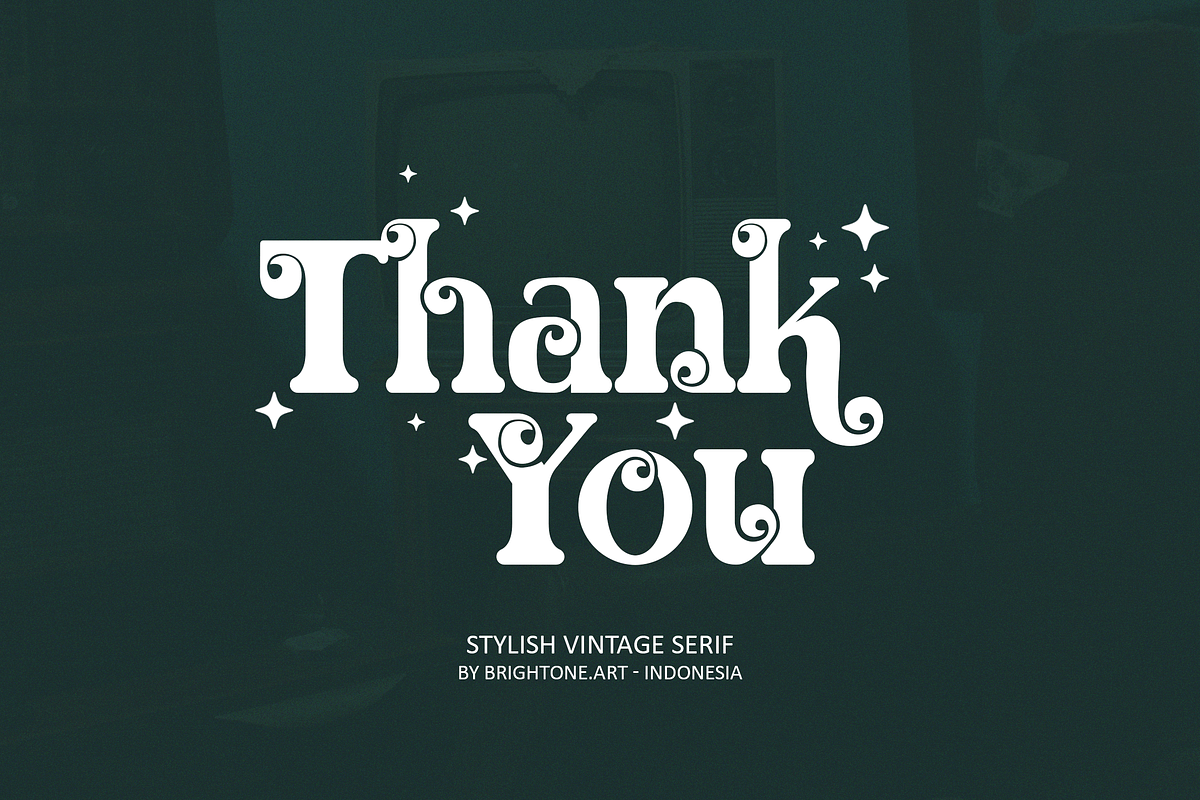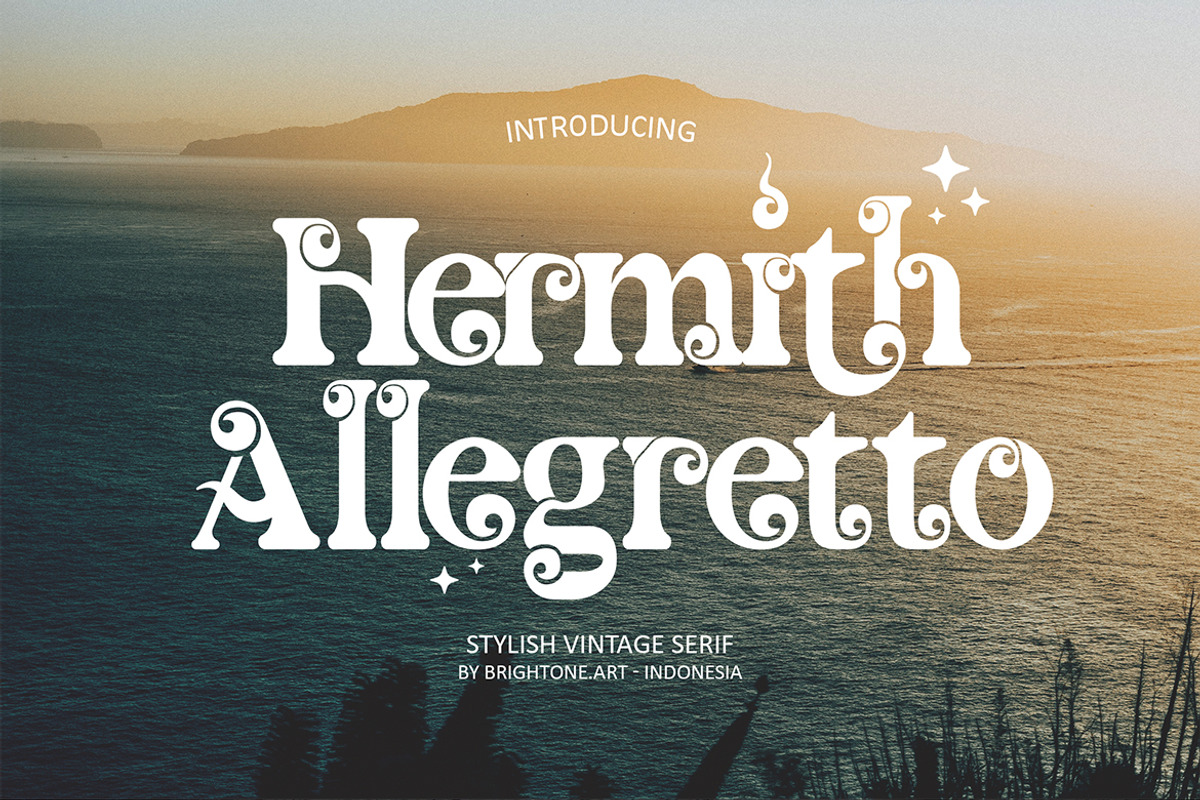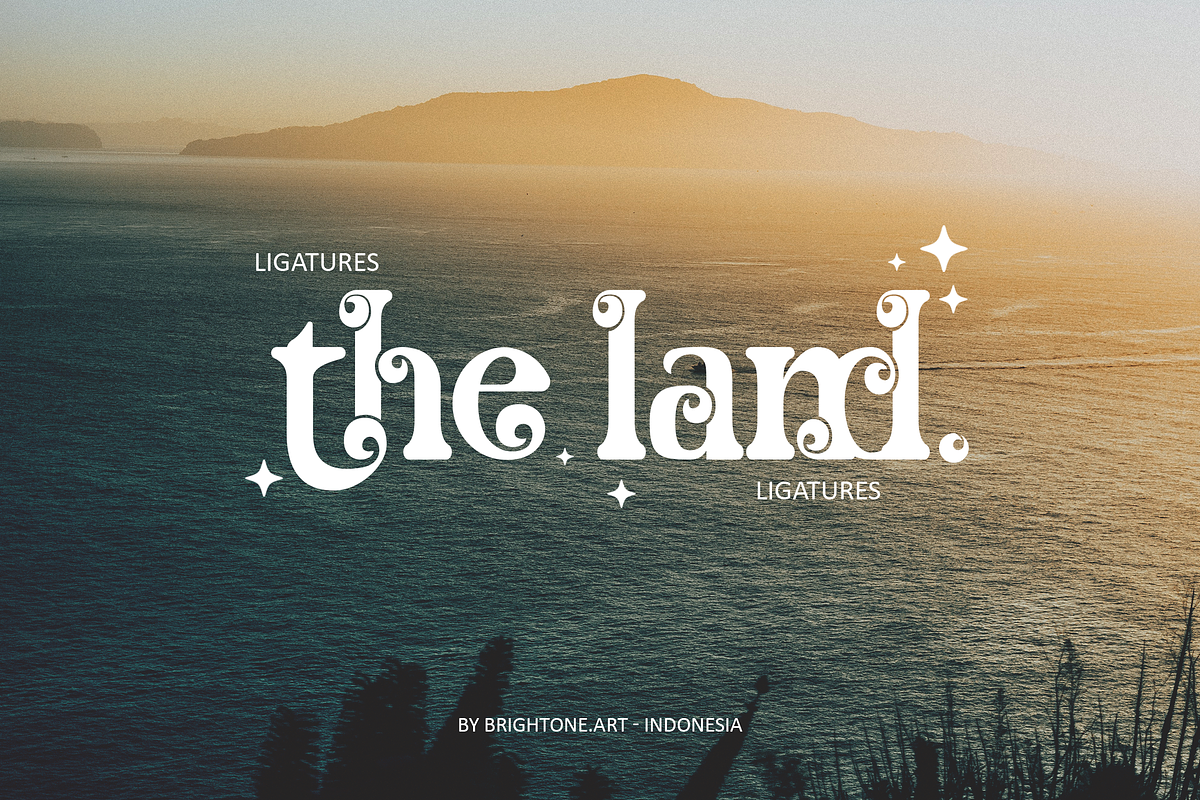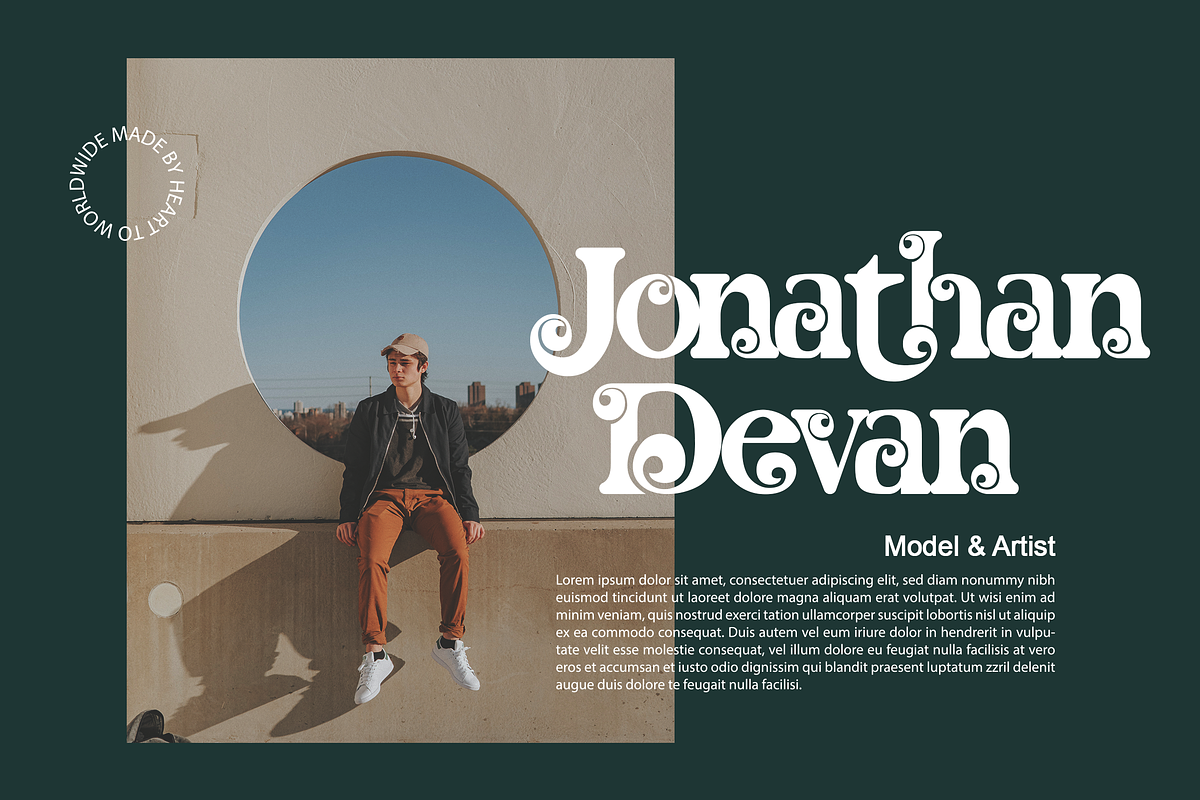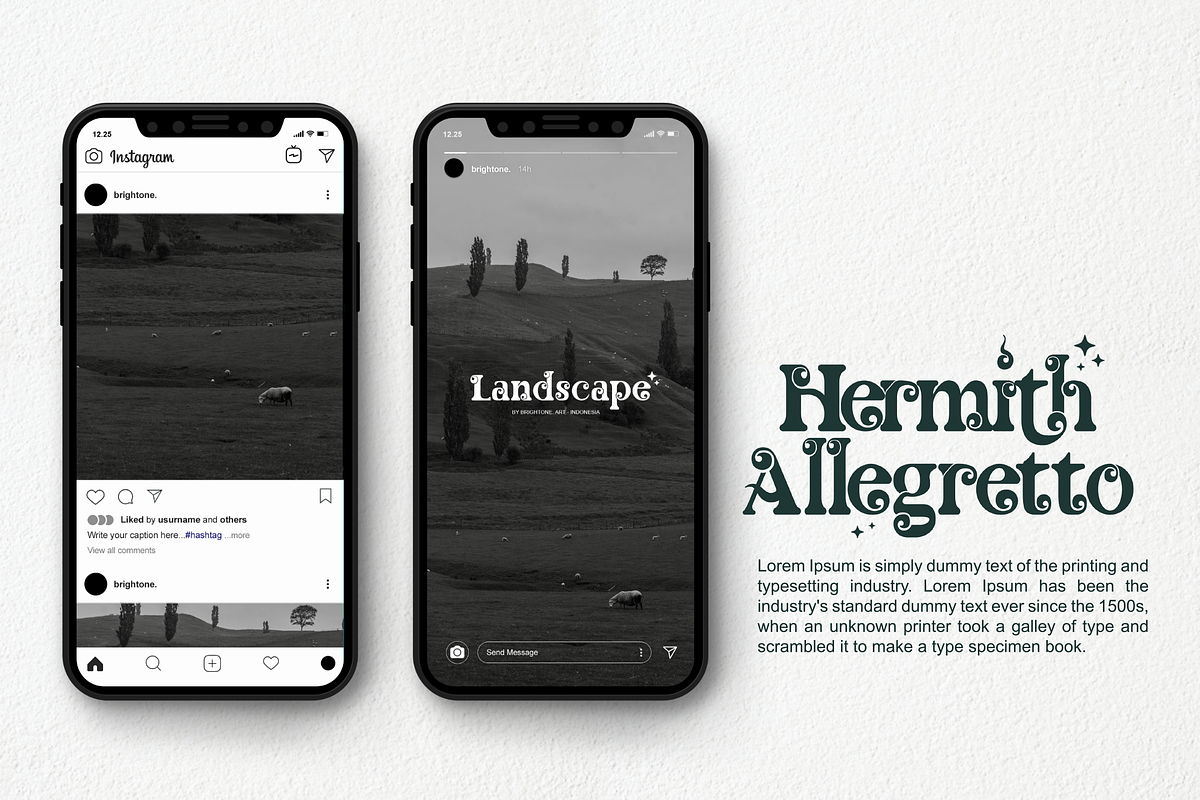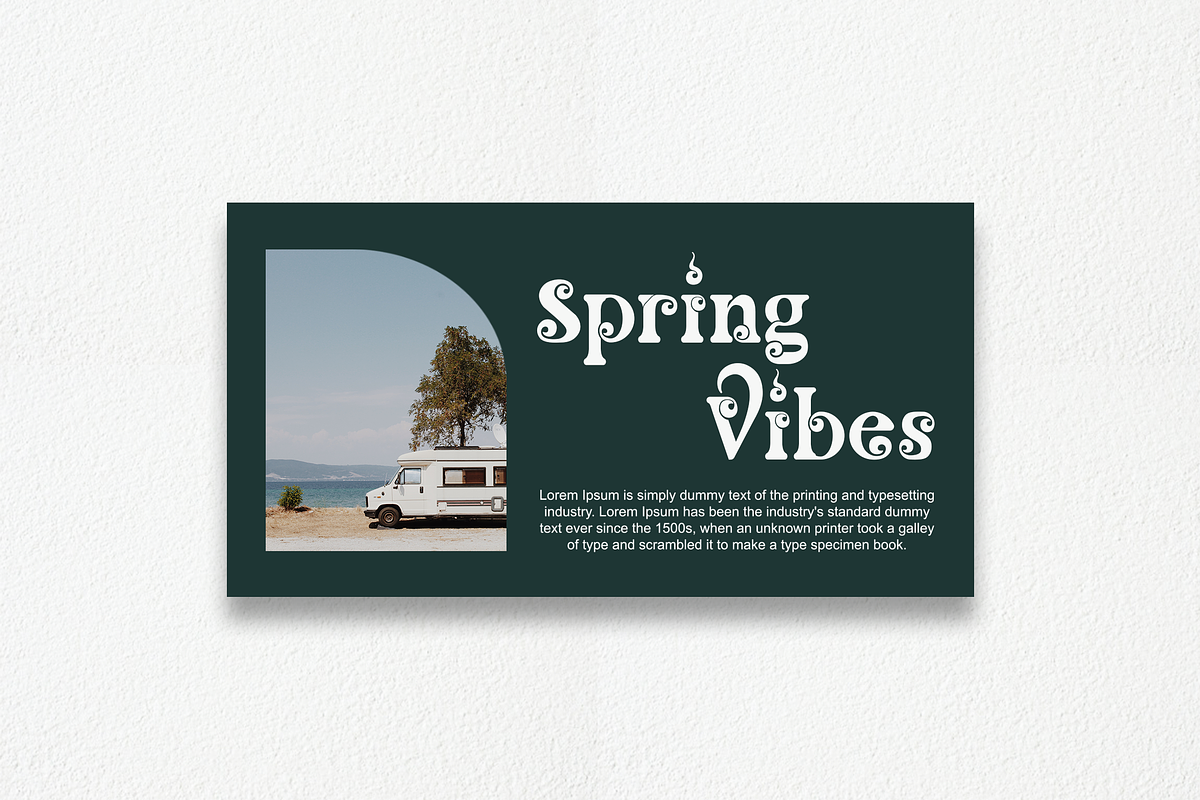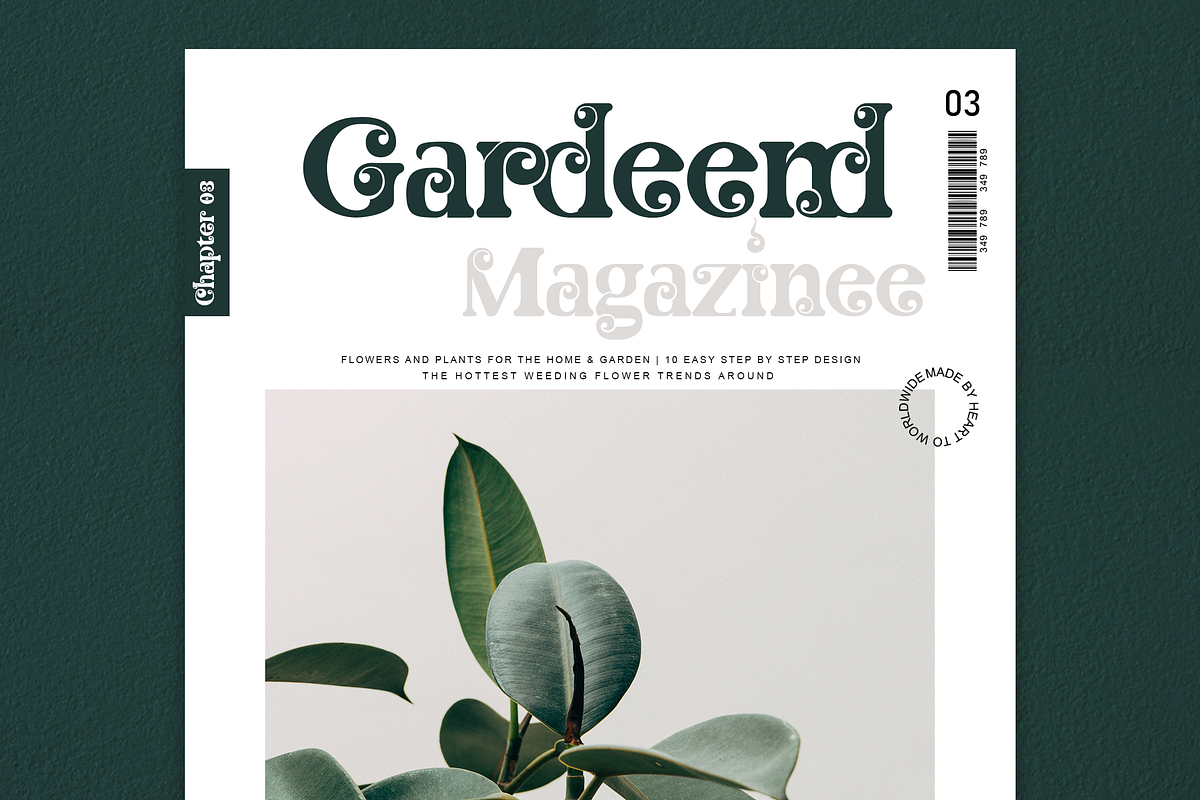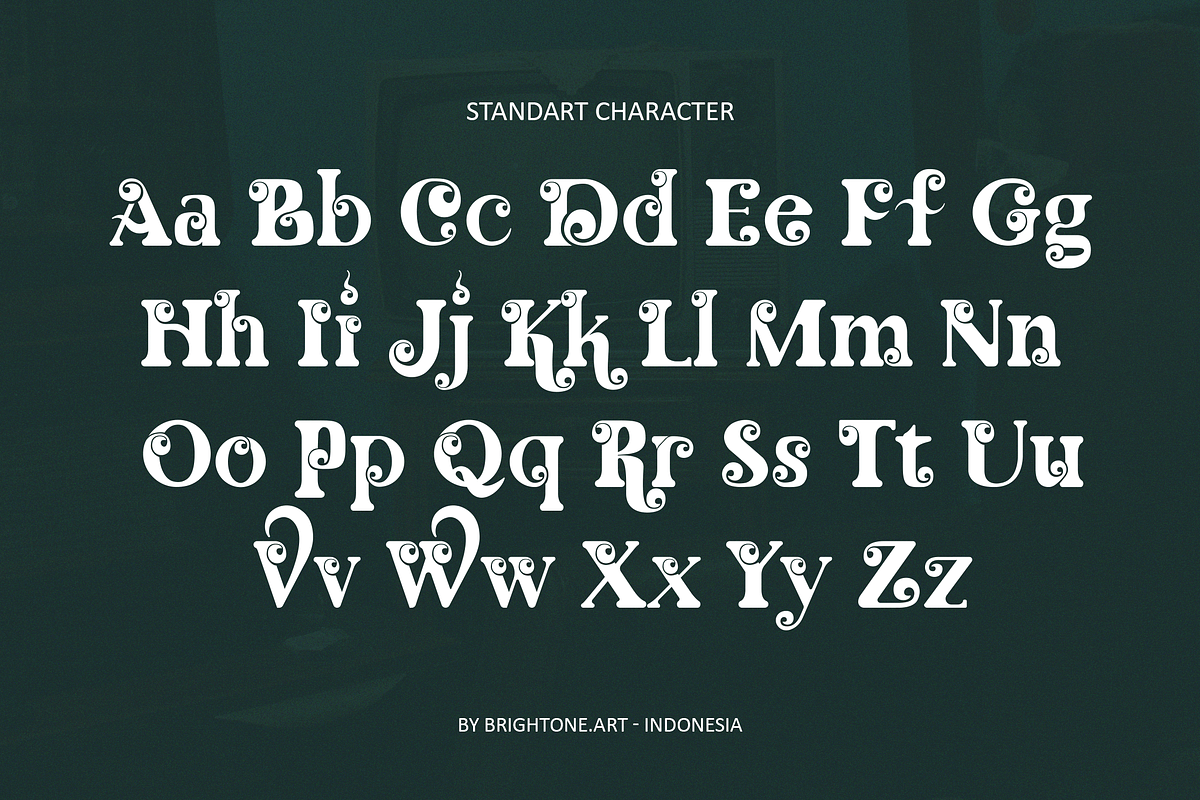
Hermith Allegretto - Classic Style
HERMITH ALLEGRETTO is classic serif font with good style includes uppercase letters, numerals, a large range of punctuation and multilingual support. Classic Serif style for your logo lettering, logo, label, packaging, sticker, branding etc